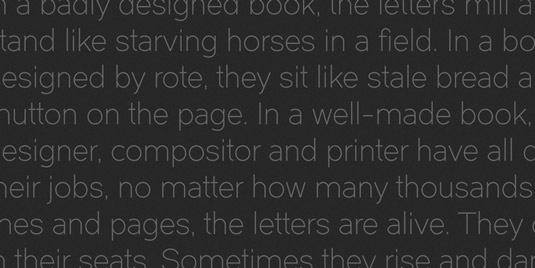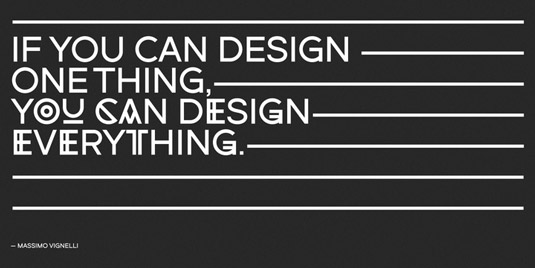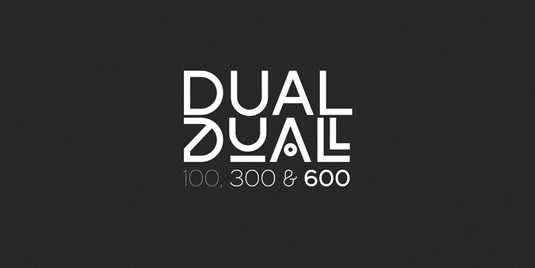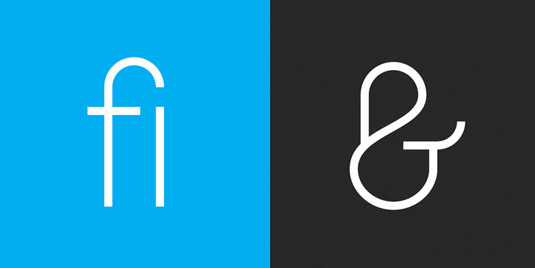
Font of the day: Dual
Every day we showcase the best fonts on the web. Today it's Dual by Charles Daoud.
Dual by Charles Daoud
Designer and art director Charles Daoud created today's font of choice, Dual. Daoud comments on his design: "Dual is a full-width, sans-serif typeface. It's really two fonts in one. On one side, it's a totally usable text and display font with a geometric feel with multiple language support, but it also has this crazy experimental side which consists of over 250 alternate glyphs and 10 stylistic sets."